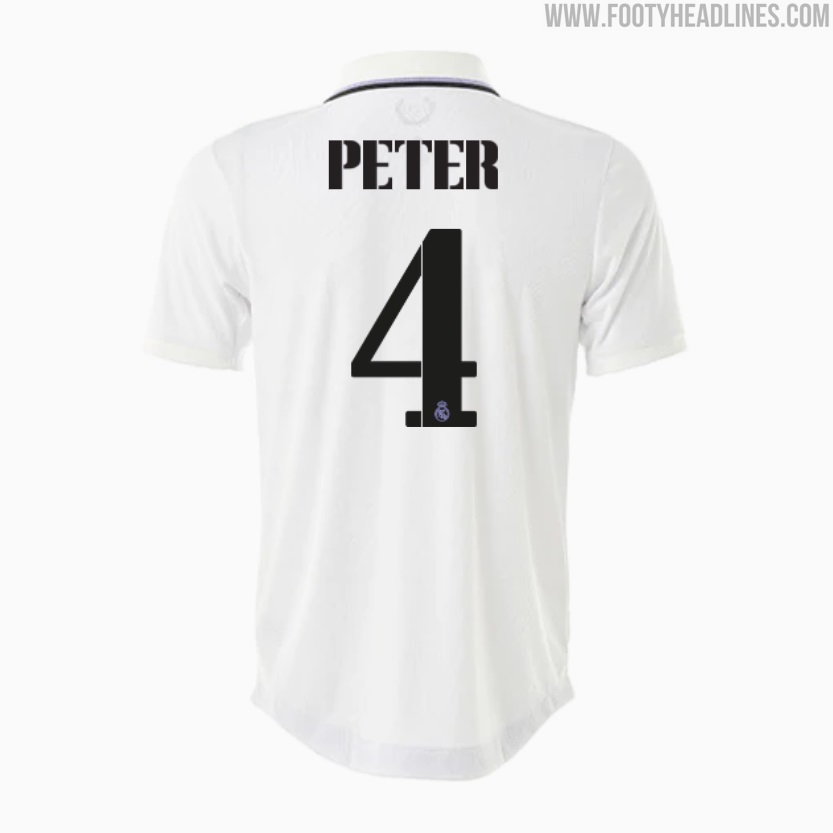
Real Madrid 22-23 Kit Font Released
Real Madrid CF take us back to 2002 with their new 2022-2023 kit font.
Real Madrid will wear the font in the cup matches only
Real Madrid will wear the typeface in the 2022-2023 Copa del Rey and Champions League but not in La Liga. The Spanish league has a streamlined typeface.
Real Madrid CF 22-23 Kit Typeface
The Real Madrid 22-23 kit typeface is closely inspired by the iconic typeface of 20 years ago when Real Madrid won the Champions League.
A direct comparison between the original and new typeface reveals that there are clear differences between both typefaces. For example, the cutouts of the numbers are much smaller - this is likely because of UEFA's rules which forbid these nowadays.
Real Madrid allow to have any name and number - we imagined how Mbappe 7 would look.
Real Madrid are releasing a new typeface every season